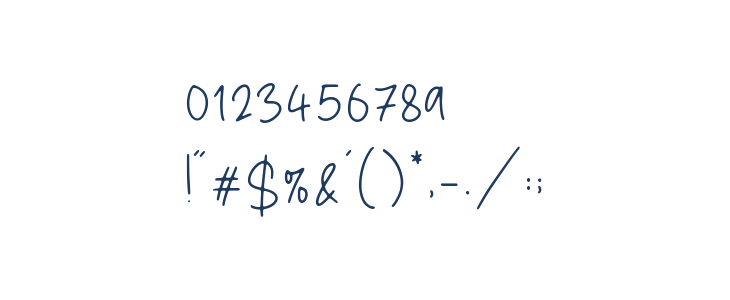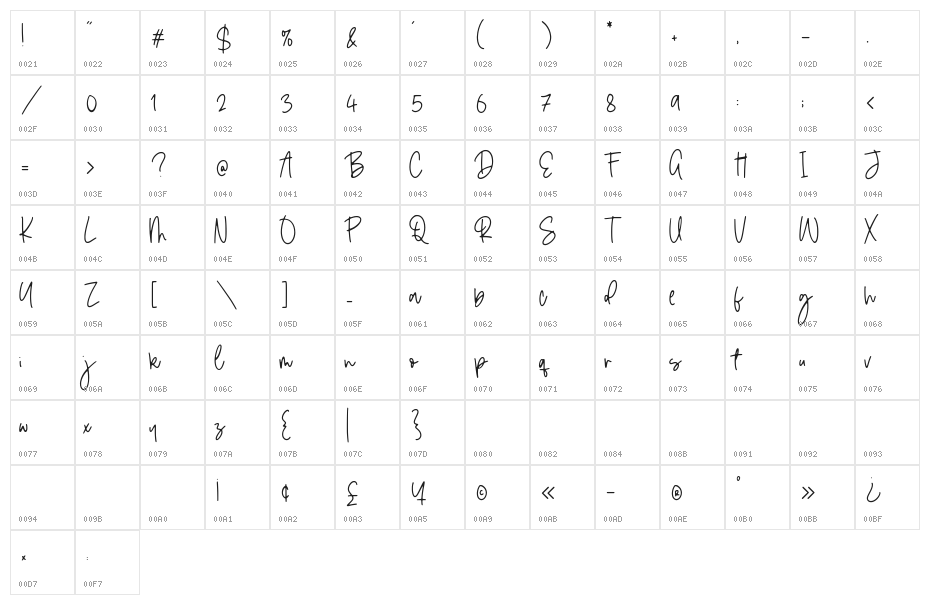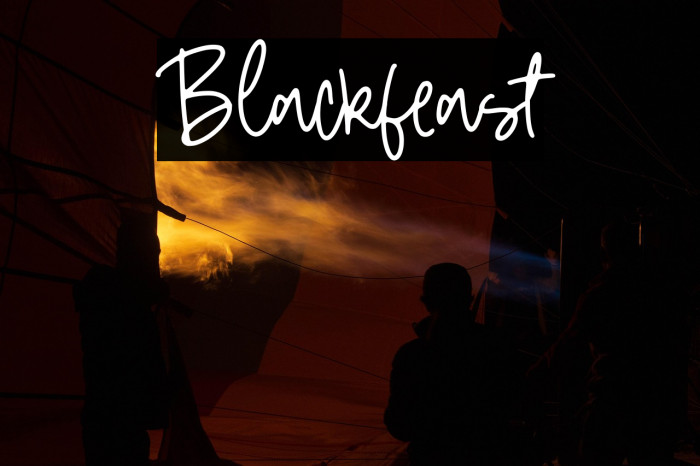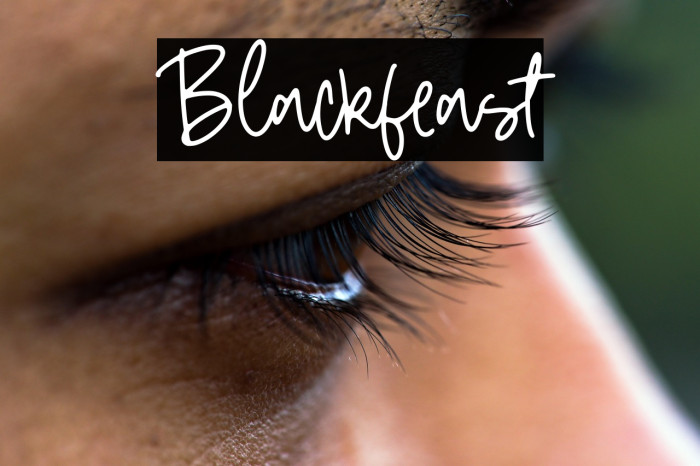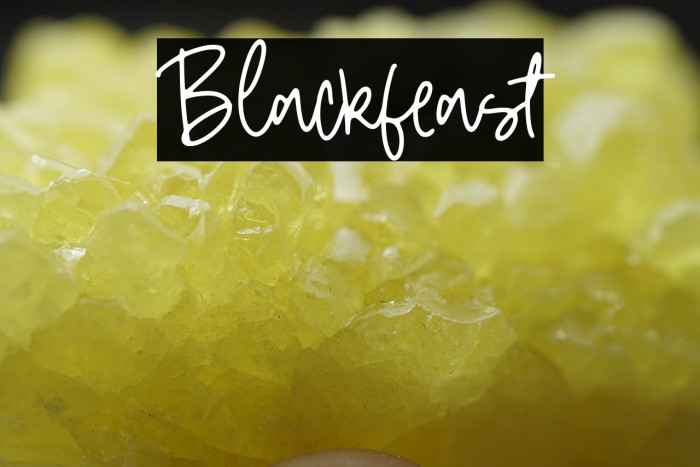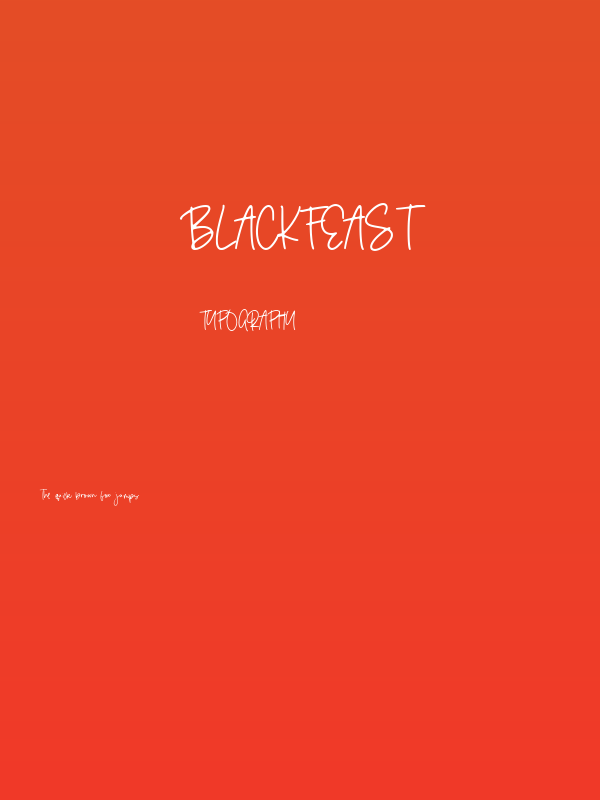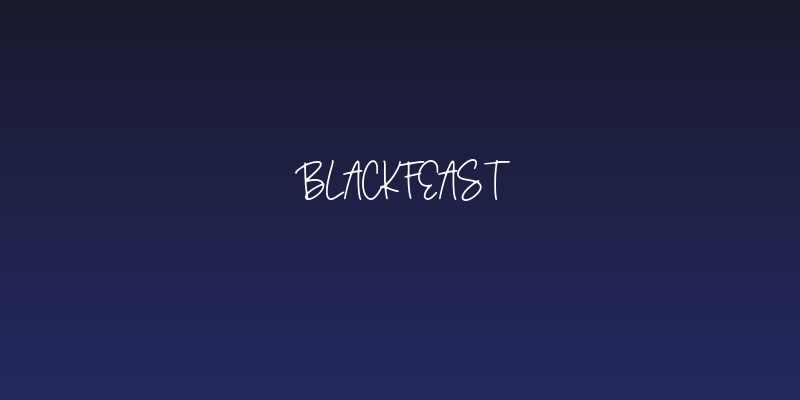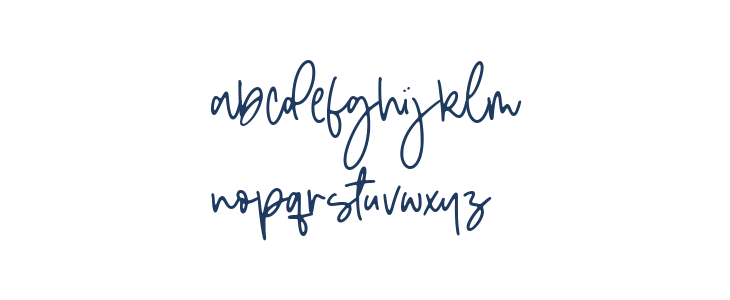
Blackfeast Font
Blackfeast Description
This font exudes a playful and casual handwritten style, characterized by its flowing, cursive-like strokes. The uppercase letters are bold and slightly slanted, giving a sense of movement and energy. The lowercase letters maintain a consistent style with a more pronounced slant, enhancing the handwritten feel. Numbers and special characters follow the same aesthetic, ensuring uniformity across all glyphs. The overall appearance is informal and friendly, making it suitable for creative and personal projects.
| Use Case | Logos, Invitations, Personal Projects |
| Proposed Projects | Ideal for greeting cards, invitations, personal branding, and creative social media graphics. |